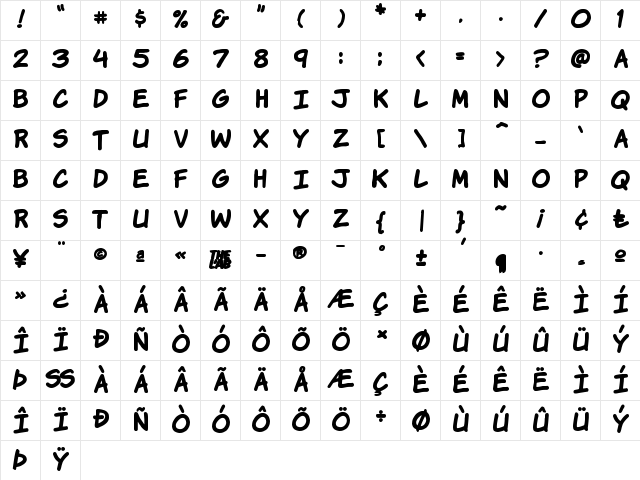
Komika Hand Bold
Bold ·  WolfBainX & Apostrophe ·
DesignerWolfBainX & Apostrophe
Design Context for Komika Hand Typeface
Komika Hand flows with the natural rhythm of handwritten lettering, making it ideal for designs that call for warmth and personal expression. The heavy weight commands attention and anchors typographic hierarchies.
Font Pairing: Combine Komika Hand with a simple geometric sans for maximum contrast — the tension between flowing curves and clean structure is a classic typographic pairing.
Pro Tip: Use Komika Hand for short runs of text — names, titles, or taglines. Extended body copy in script faces tires the eye quickly.